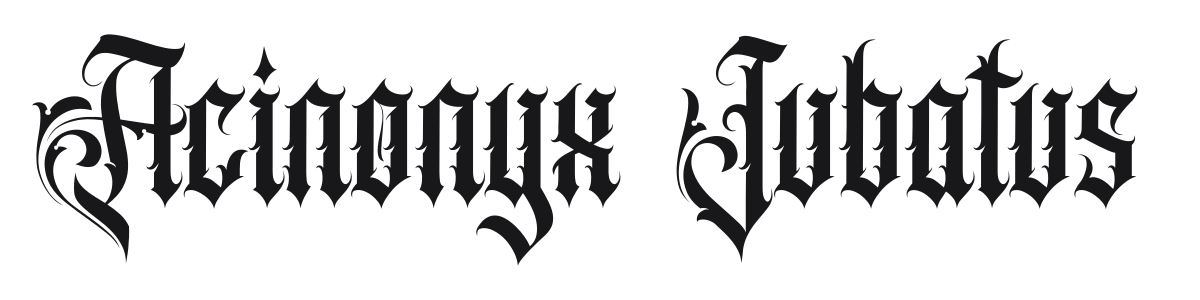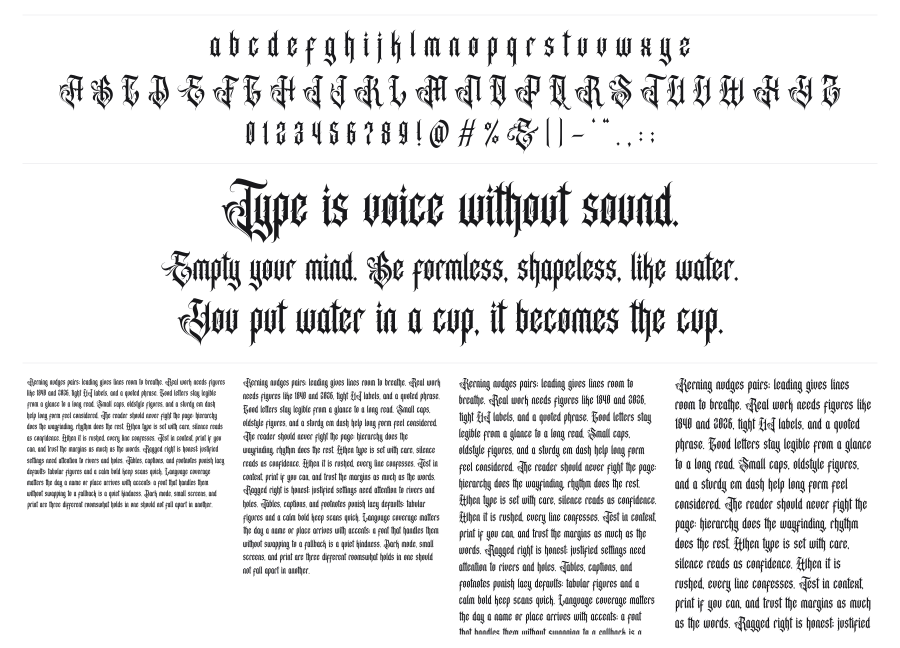
Acinonyx Jubatus
Acinonyx Jubatus is a heavy gothic blackletter with wide proportions and elaborate decorative terminals that spike and curl with aggressive energy. The high contrast between thick stems and hairline strokes gives it a dense, medieval texture that reads instantly as dark and dramatic. It gravitates naturally toward heavy metal, tattoo culture, and any brand that wants to project raw authority.